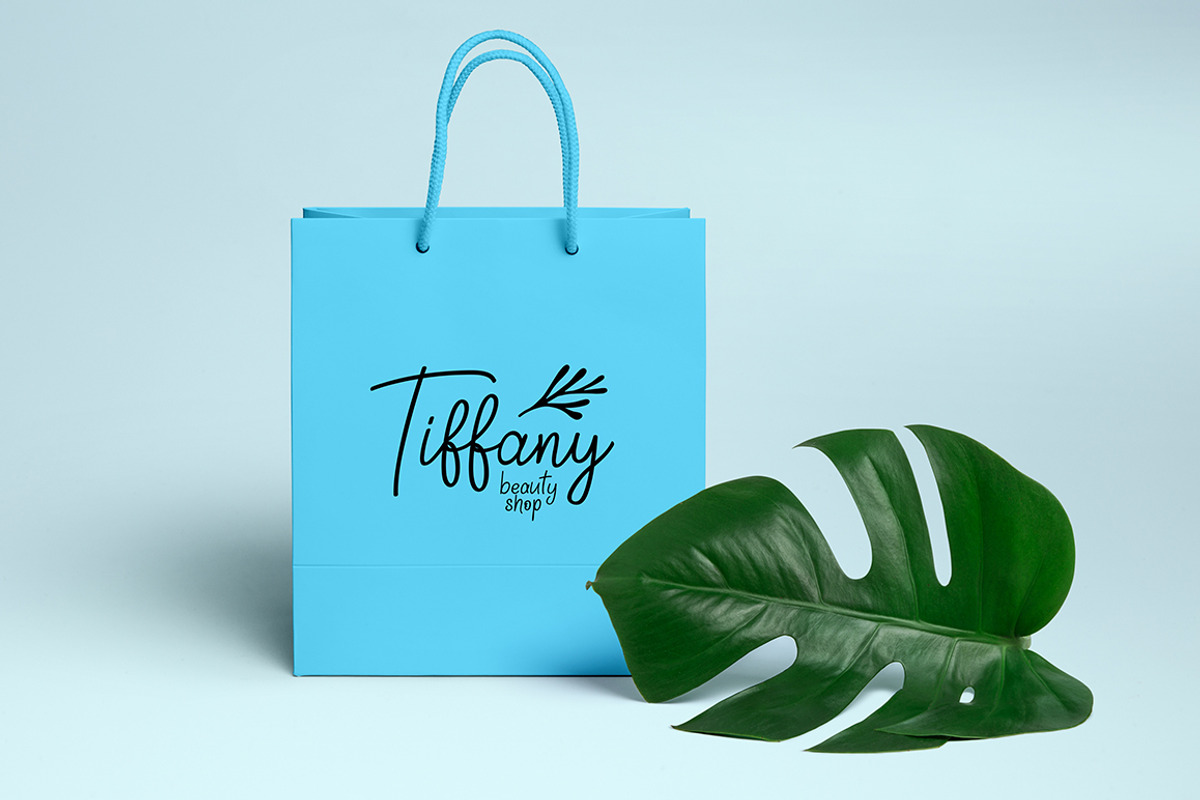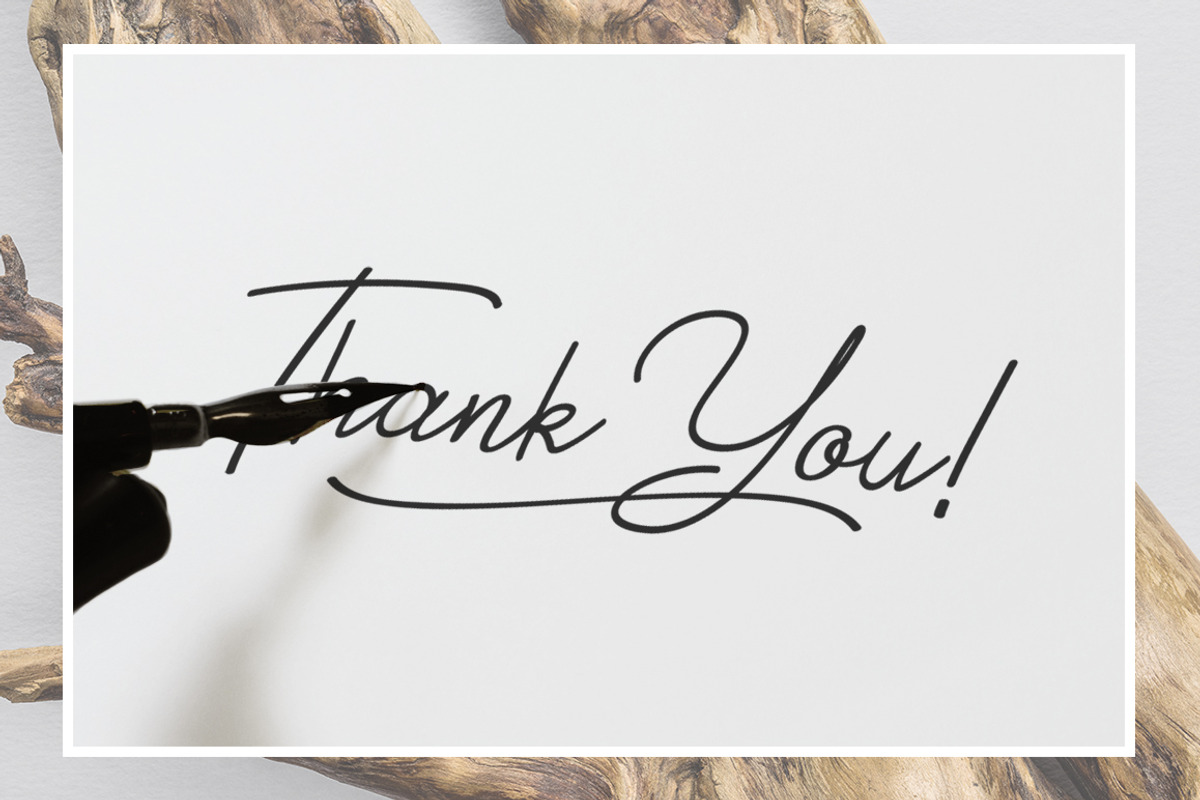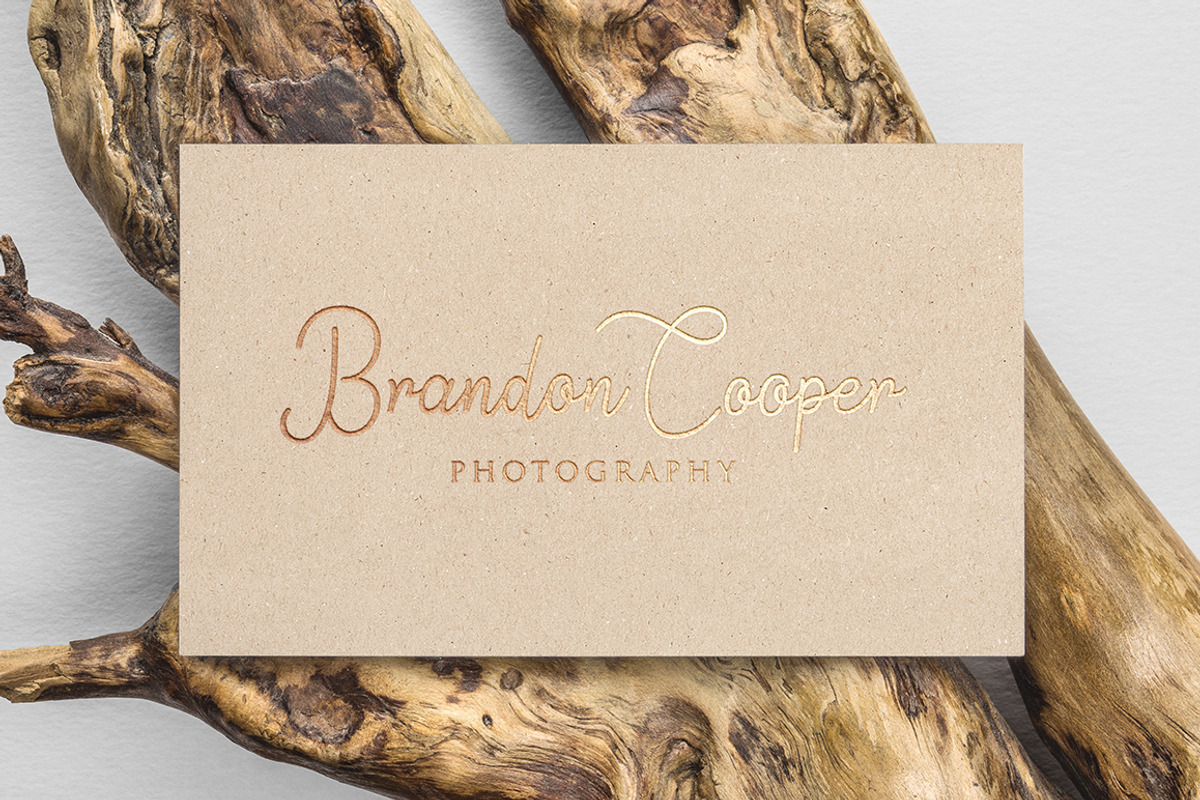
Springfield | Fontduo+Extras
Springfield Fontduo + Doodle Illustrations
A Perfectly new font pair with a handy set of complimentary doodle Illustrations. Allowing you to create beautiful hand-made typography in an instant. With 2 different fonts, and a fun doodle illustration. It flows like a signature while you type it.
Springfield is perfect for branding projects, logo, invitation, product packaging, tshirt design or simply as a stylish text overlay to any background image.
- Springfield Script - Script font.
- Springfield Sans - Sans font.
- Springfield Swash - This includes 20 hand-drawn swash with font format.
- Doodle Illustrations - Over 80 handy doodle illustrations.